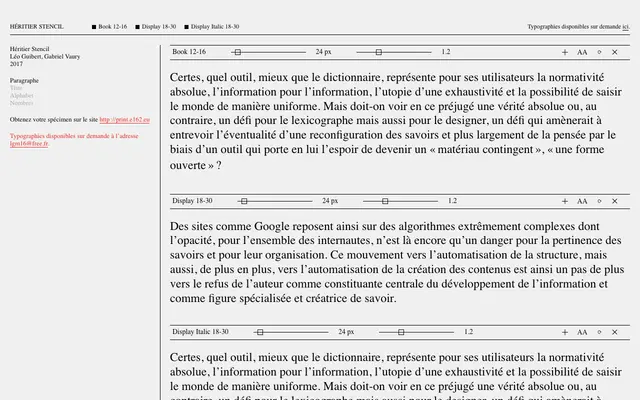
Héritier Stencil
E162 · Léo Guibert, Gabriel Vaury · 2017
A stencil typeface by Léo Guibert and Gabriel Vaury, offered in Book and Display optical sizes with a Display Italic, covering 421 characters.
Designed by Léo Guibert and Gabriel Vaury at E162 and released in 2017, Héritier Stencil provides three subfamilies calibrated to specific size ranges: Book for 12–16pt settings, and Display Italic for 18–30pt. The 421-character set gives reasonable coverage for French and extended Latin text. Available to licence on request directly from the foundry.
A stencil typeface offered in Book and Display optical sizes with an italic variant, placing it firmly in the display category with a stencil subcategory.